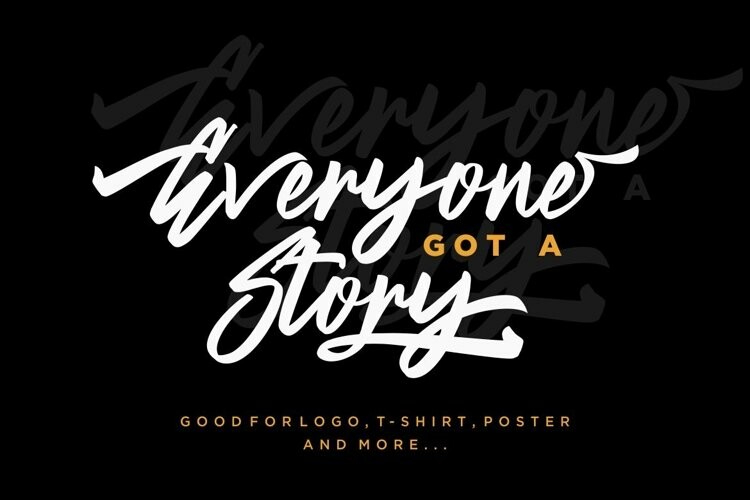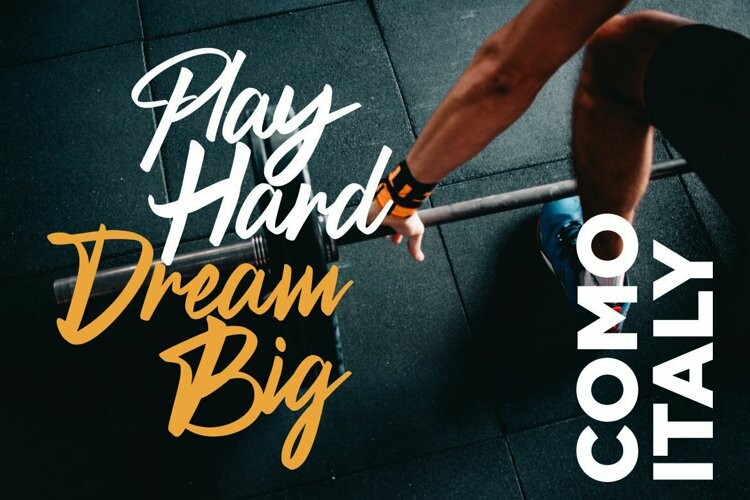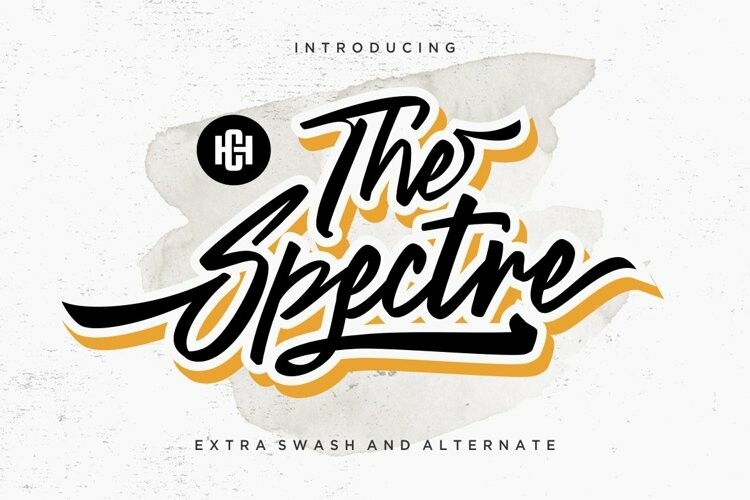
The Spectre font
The Spectre fontThe Spectre is a calligraphy font with many alternative styles, swashes that perfect for you who needs a typeface for especially logotype, apparel, invitation, branding, packaging, advertising etc.